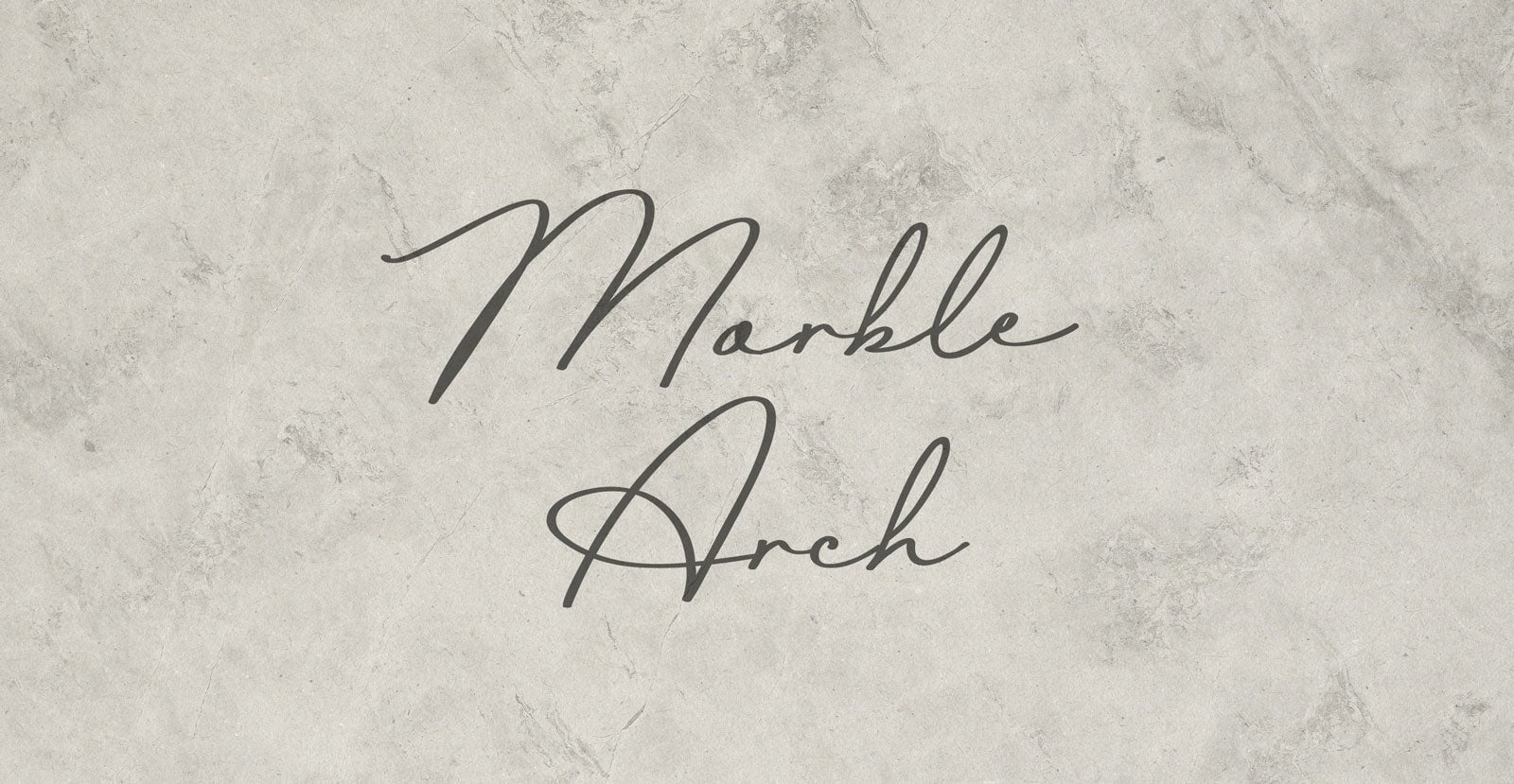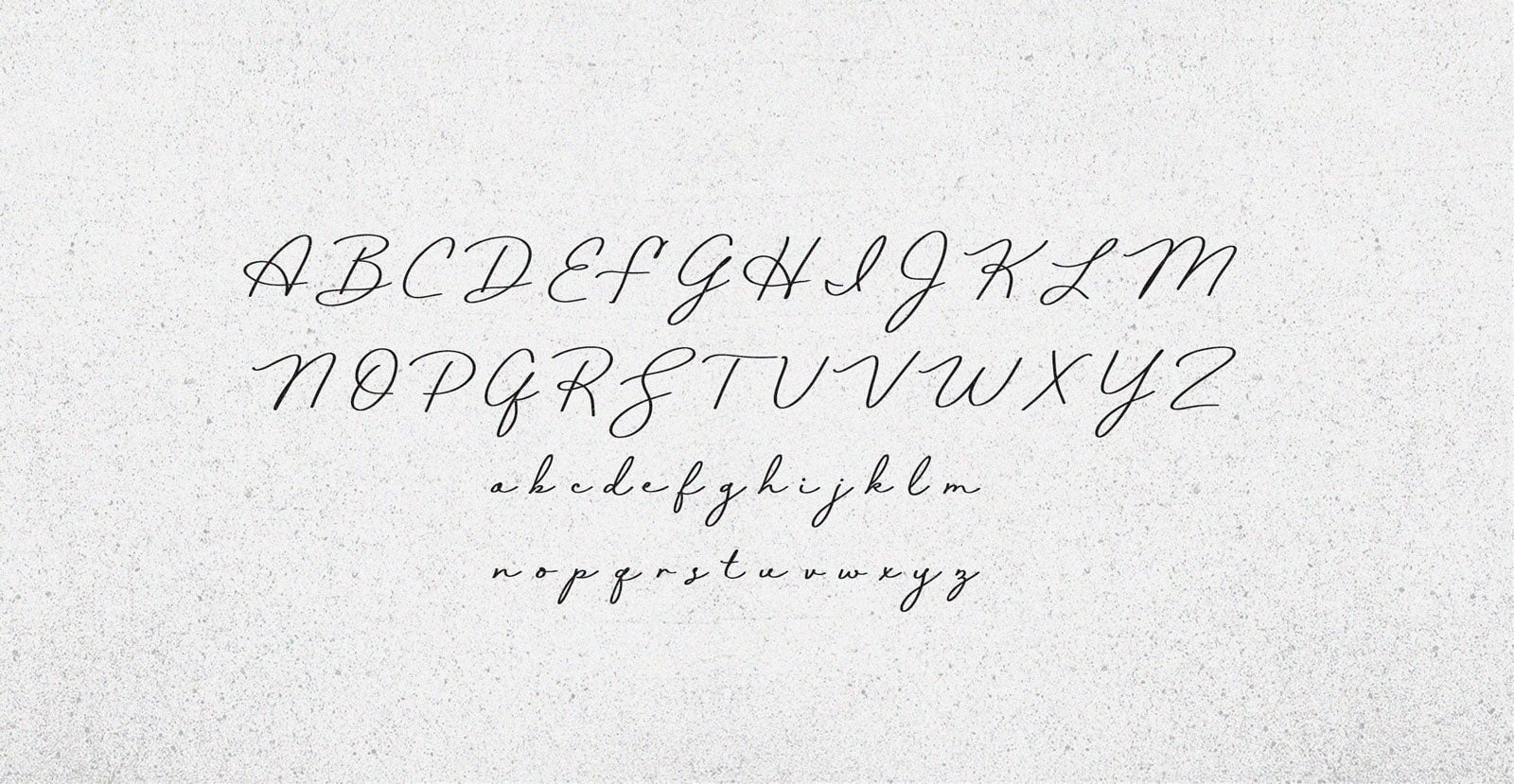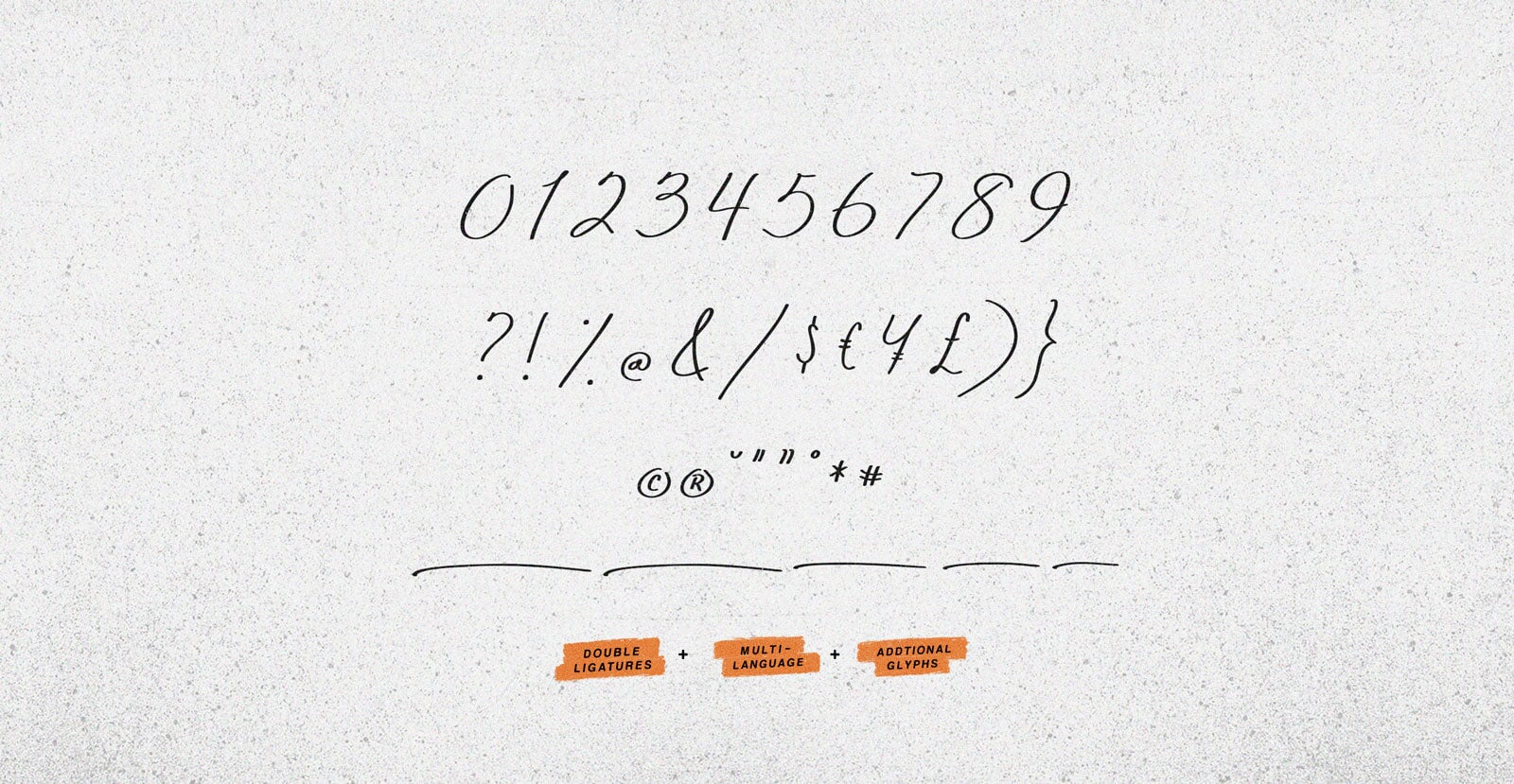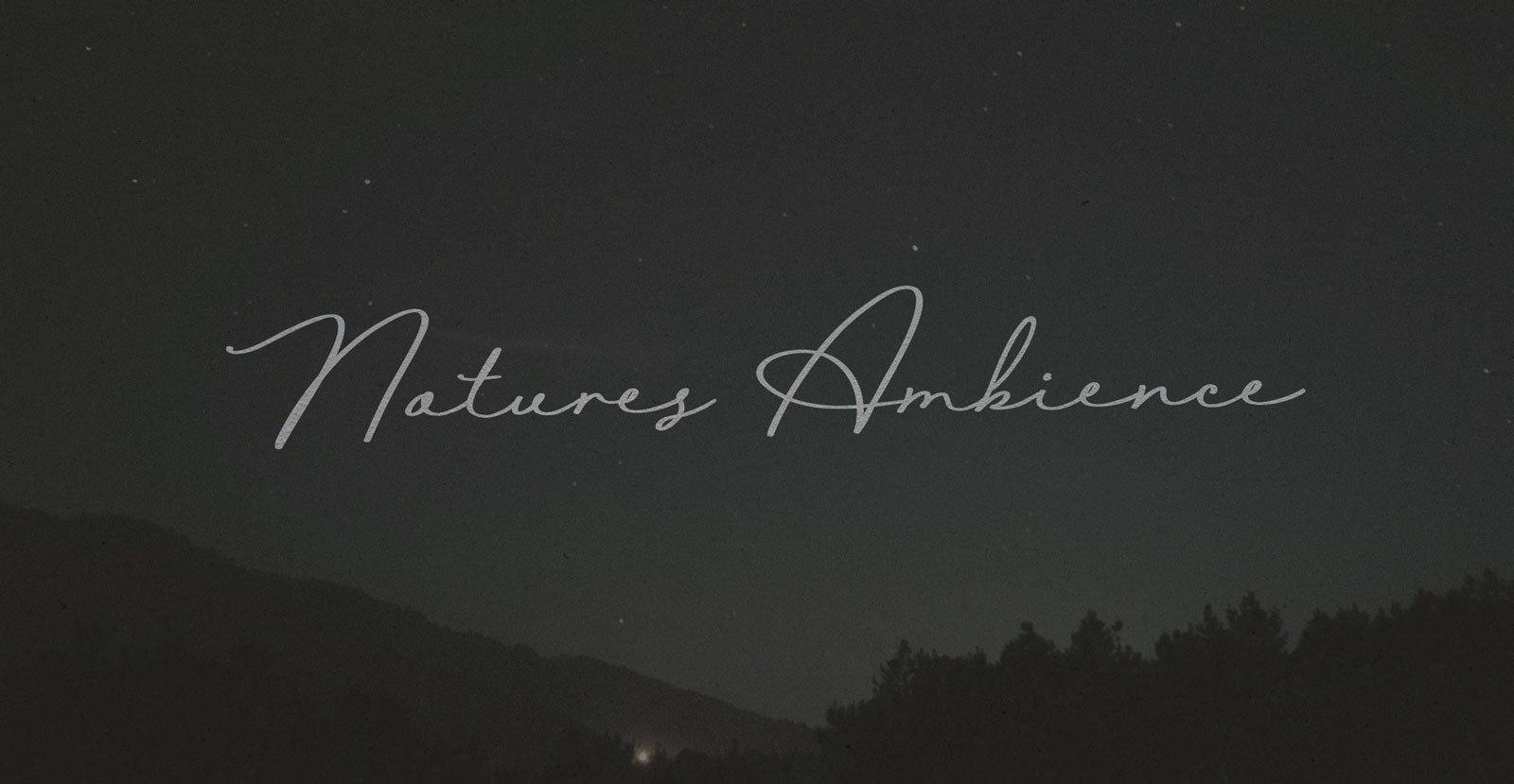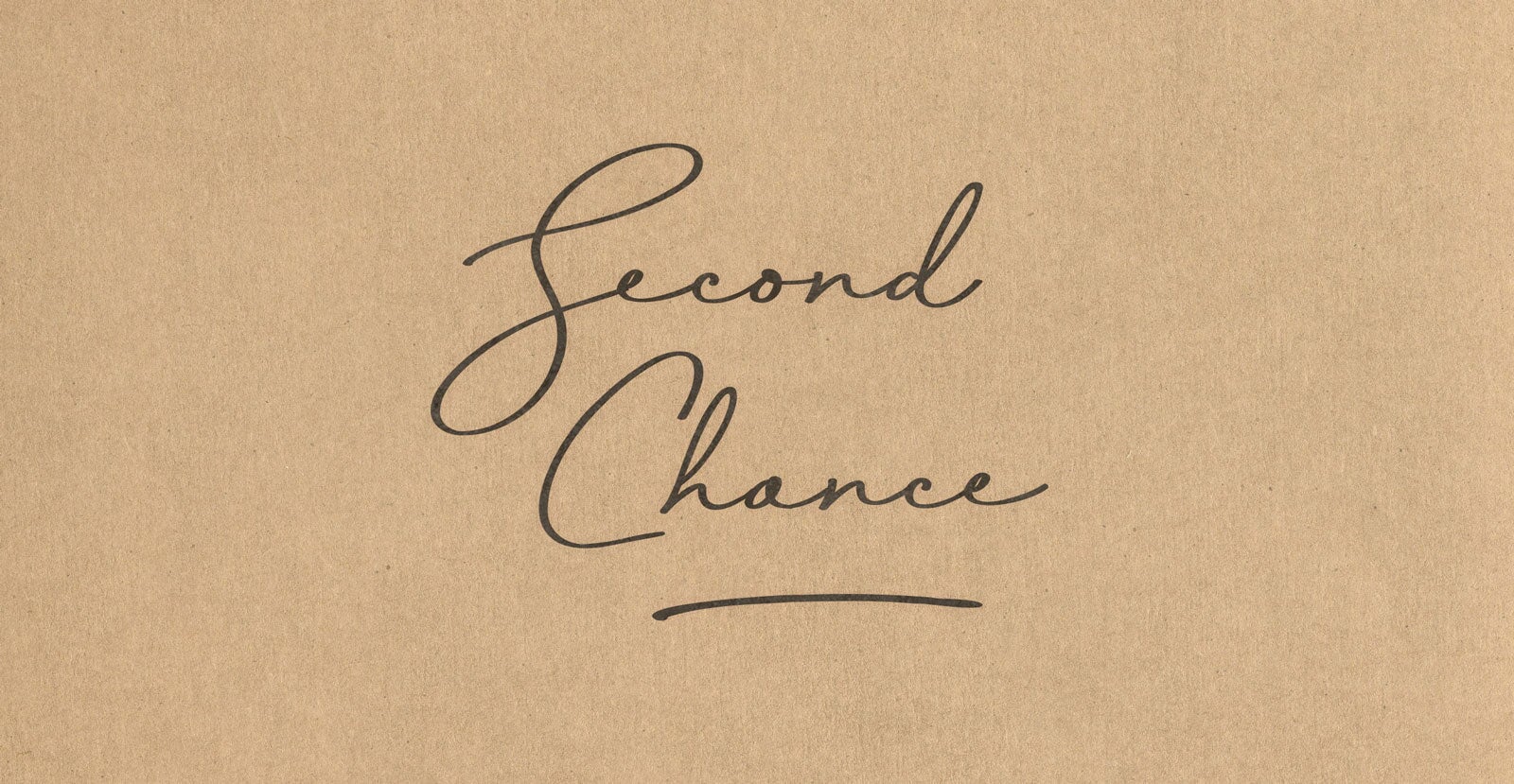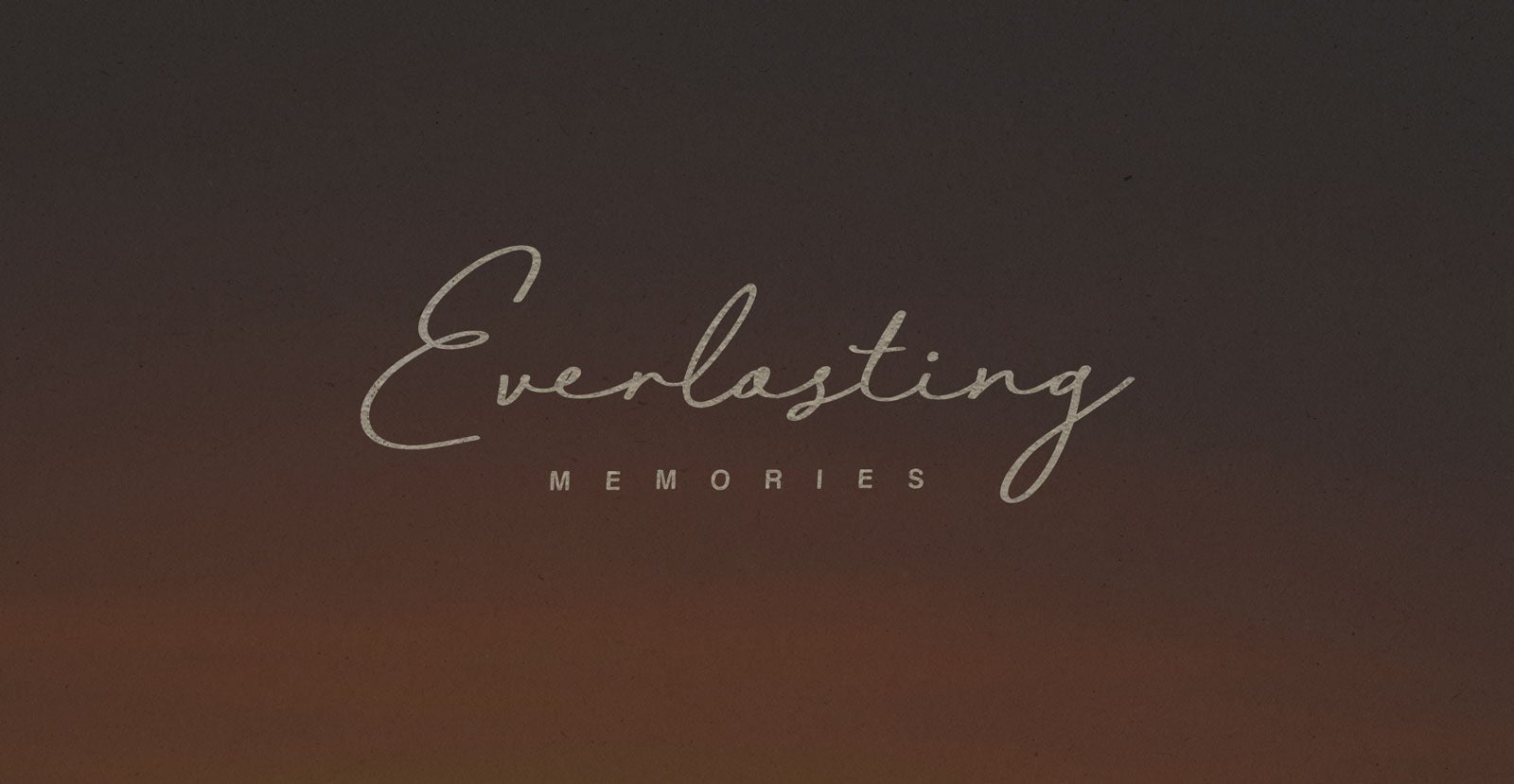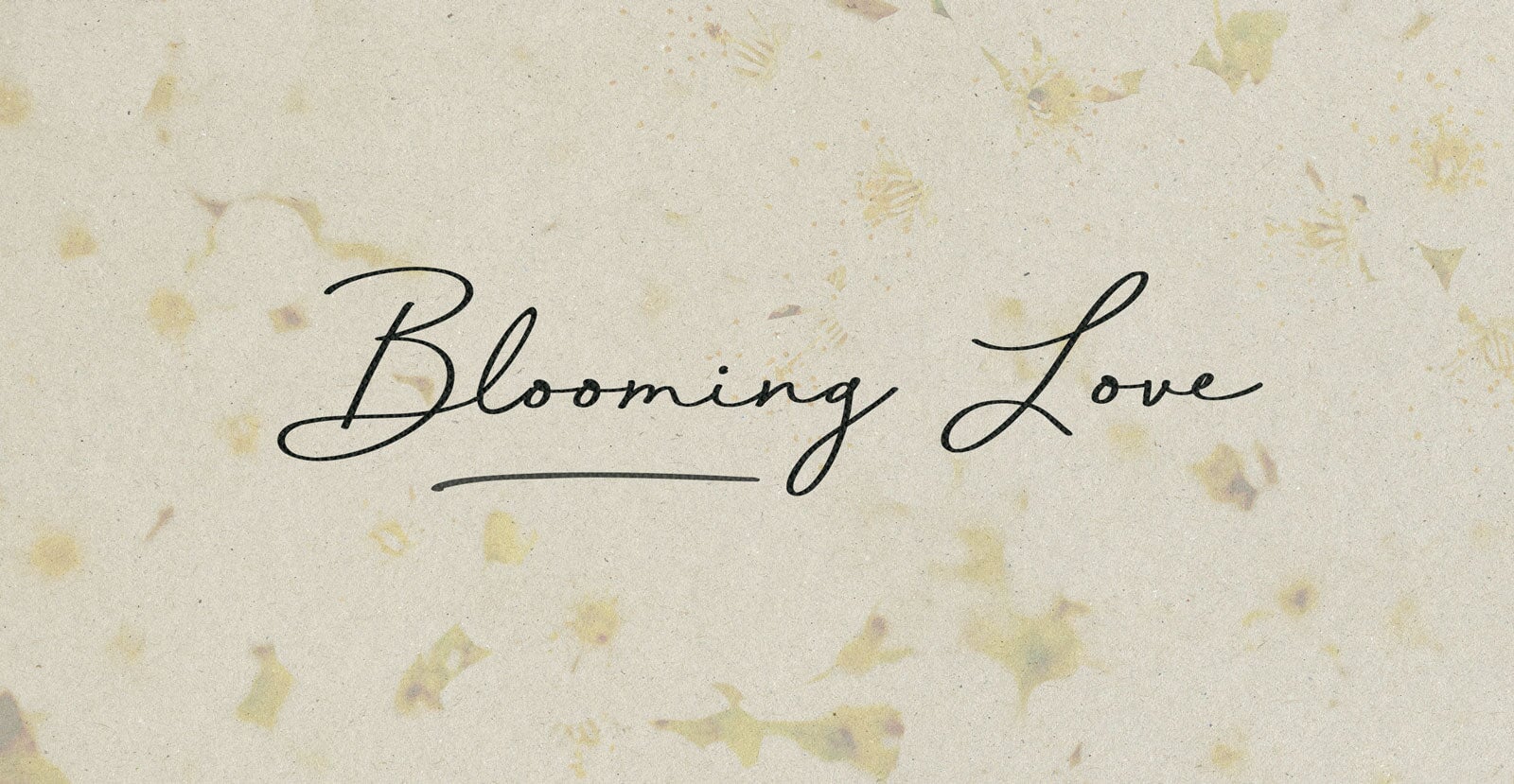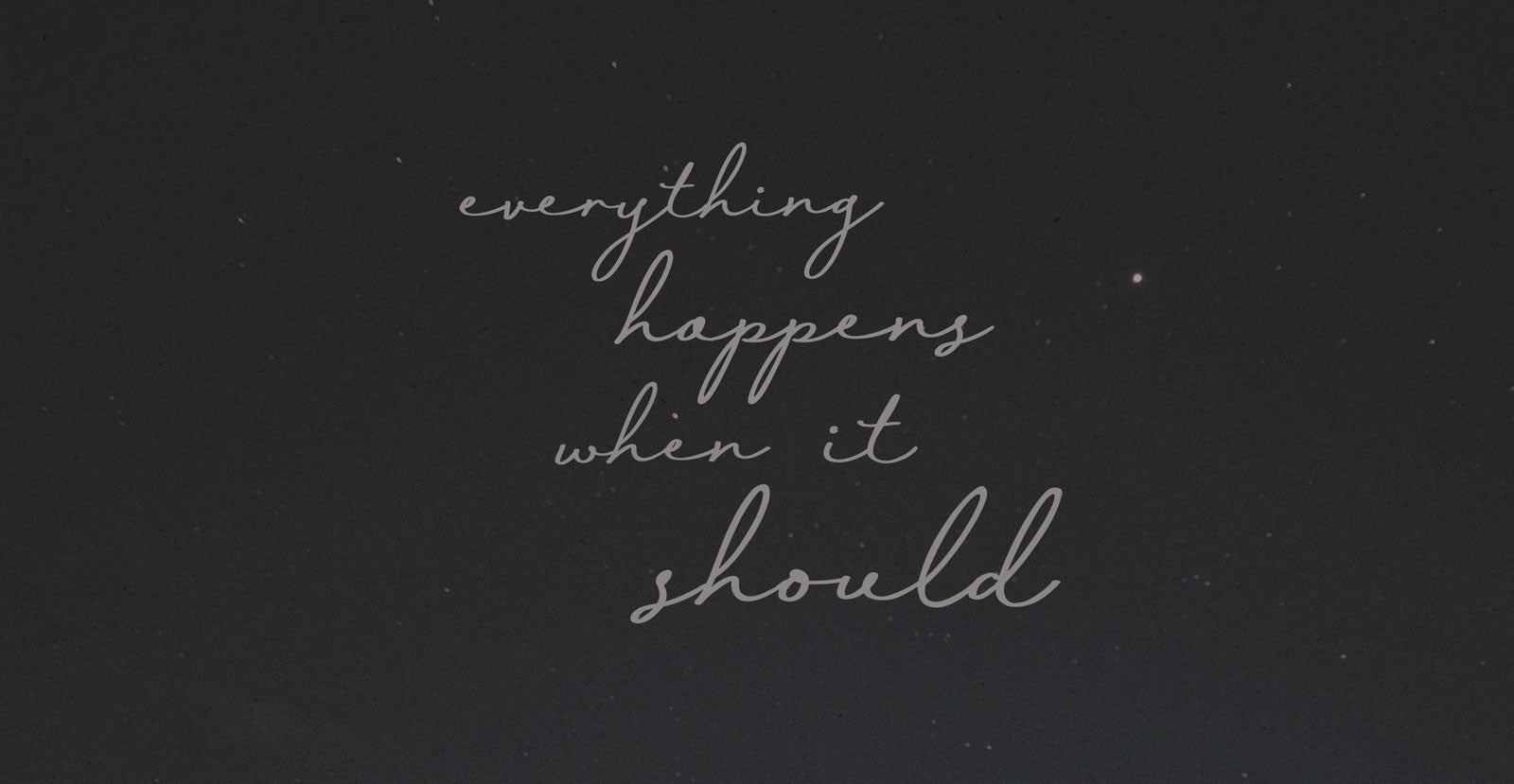
Marble Arch
Handwritten Pen Script Font
Marble Arch stands with quiet authority. Solid and built to last. It balances weight and openness, where every curve feels intentional and every line holds memory. Not just structure but a symbol of time.